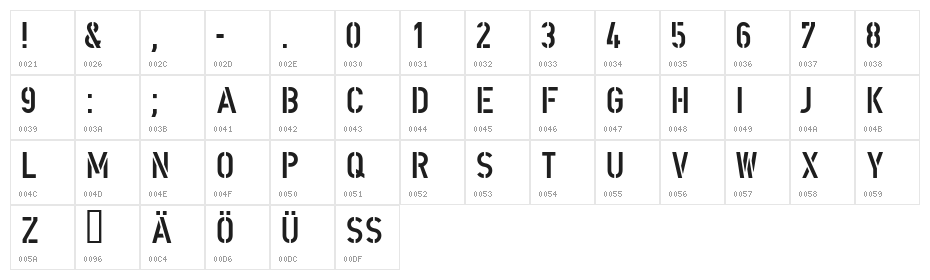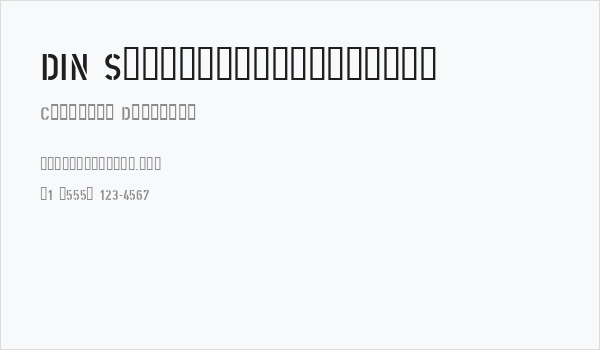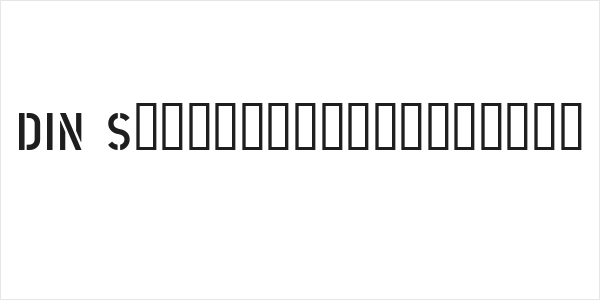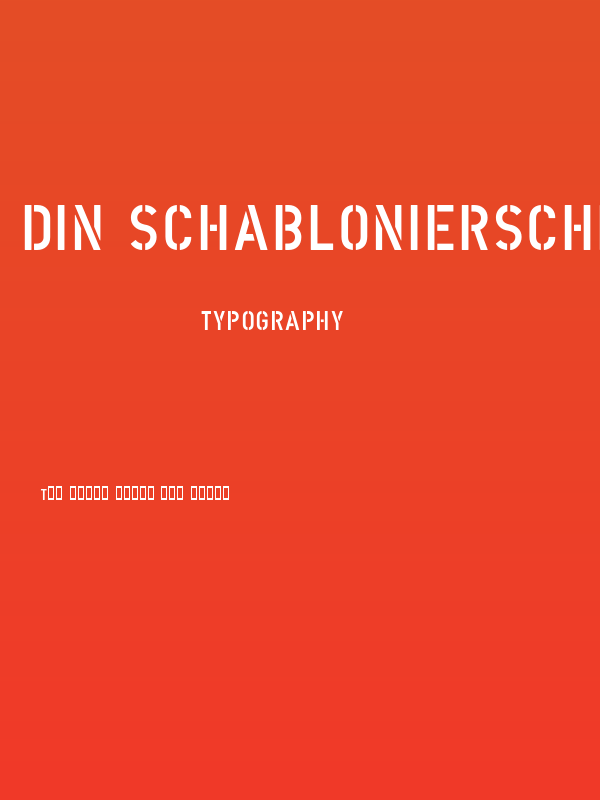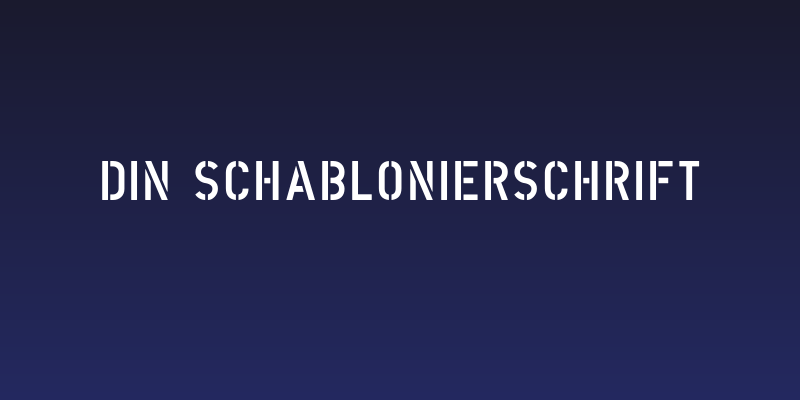
DIN Schablonierschrift Font
DIN Schablonierschrift Description
This font features a bold, geometric design with a stencil-like appearance, characterized by its distinct cut-out sections within each letterform. The uppercase letters are uniform in height, contributing to a clean and structured look. The numerals and special characters maintain the same boldness and geometric style, ensuring consistency across all glyphs. This design is reminiscent of industrial and technical aesthetics, often used for labeling and signage where clarity and impact are essential.
| Overall Style | Industrial, Technical |
| Use Case | Signage, Logos, Headlines |
| Proposed Projects | Ideal for industrial design projects, signage, labeling, and any creative work requiring a bold, technical aesthetic. |